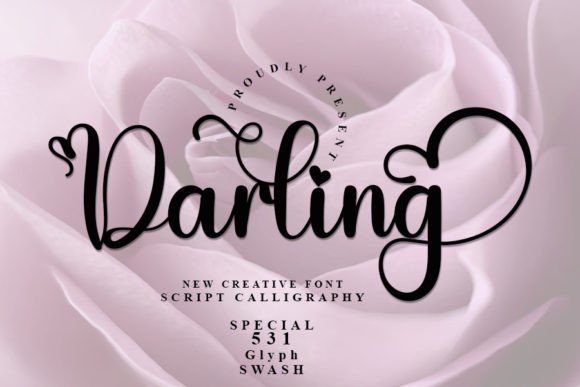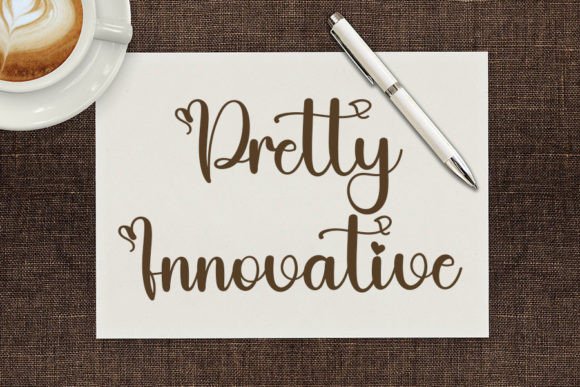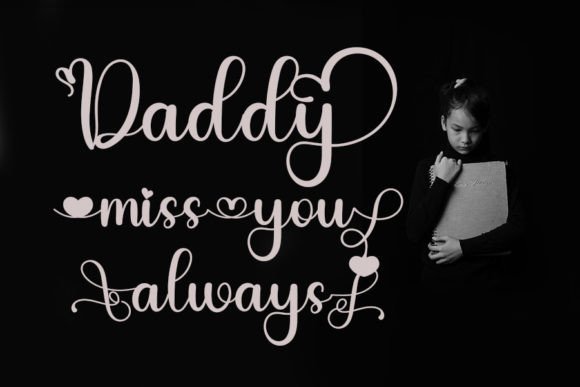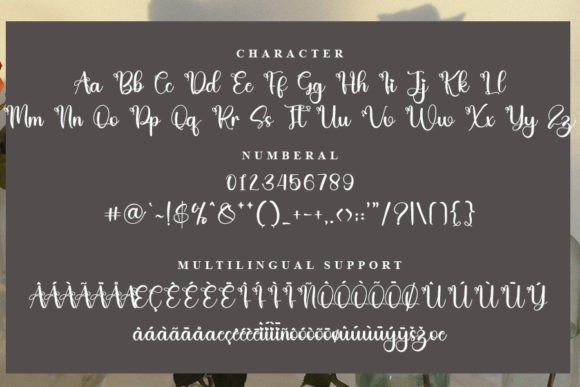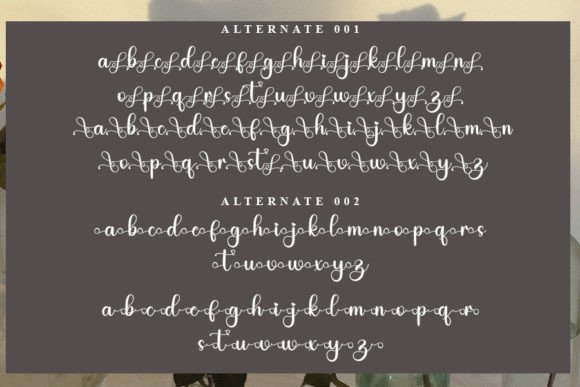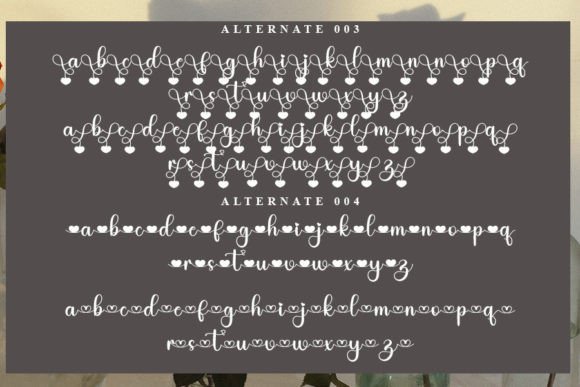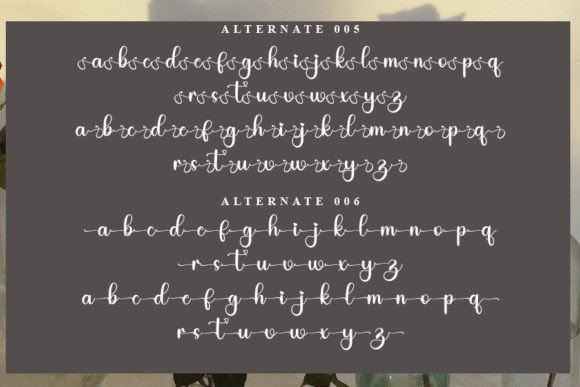
Discover the Timeless Elegance of Darling Font
You know that moment when you’re brainstorming ideas for a new design project and you just can’t seem to find the perfect font to match your vision? It’s like trying to find a missing piece of a puzzle, and you know it’s out there, but where? That’s where the Darling Font comes in – a trendy handwritten font that exudes a contemporary atmosphere and impeccable form, inspired by the timeless classic calligraphy.
With Darling Font, you’ll be able to add a touch of elegance and class to any design project, from wedding invitations to branding materials. Its versatility makes it the perfect addition to any designer’s toolkit, and its unique character will set your designs apart from the crowd. Whether you’re a seasoned pro or just starting out, the Darling Font is an invaluable asset that will help you create truly unforgettable designs.
Darling Font Key Features
- Font Size: The font family includes 6 weights, ranging from Thin (100) to Bold (800), providing flexibility for various design applications.
- Unique Characteristics: This font features elegant, cursive script lines with subtle flair and flair-like features, making it ideal for adding a touch of sophistication to designs.
- Language Support: Darling Font supports a wide range of languages, including Latin, Cyrillic, and Greek scripts, making it a versatile choice for global applications.
- Kerning and Ligatures: The font includes advanced kerning and ligature pairs, ensuring smooth text flow and professional-looking typography.
Darling Font Review
I recently had the chance to work with the Darling Font, and I must say, it’s been an interesting experience. Here are my thoughts on what works well and what doesn’t.
- Unique Character: The Darling Font has a distinct personality that can add a touch of elegance to any design. Its flowing lines and cursive style make it perfect for creating a romantic atmosphere.
- Flexibility: The font is available in a range of weights, from light to bold, making it versatile for various design applications.
- Readability: Despite its cursive style, the font is surprisingly easy to read, making it suitable for body text as well as headings.
- Size Limitations: The font can become difficult to read when scaled down to very small sizes.
- Lack of Consistency: The font’s irregular lines and curves can sometimes make it challenging to maintain consistency in design.
While the Darling Font has its limitations, I think it’s a great choice for designers looking to add a touch of sophistication and elegance to their projects. With a little creativity and attention to detail, it can be a powerful tool in your design arsenal.
Darling Font: A Practical Application Guide
Getting the Most Out of Darling Font
For optimal results, use Darling Font in combination with high-quality images and a well-designed layout.
Experiment with different font sizes, colors, and styles to create a unique look.
Use Darling Font for headings, titles, and body text to create a consistent visual brand.
Darling Font is perfect for:
Food and beverage branding
Home decor and furniture design
Any project that requires a touch of elegance and sophistication
Alternatives to Darling Font for Designers
Great Vibes Font is a modern, elegant script font that works well for titles, headings, and short paragraphs. It’s ideal for creating a sophisticated and stylish look. Great Vibes Font is similar to Darling Font in its flowing and cursive nature, but it has a more refined and polished feel.
Pacifico Font is a beautiful, handwritten script font that’s perfect for creating a relaxed and beachy vibe. It’s great for headings, titles, and short paragraphs, especially in travel and lifestyle design projects. Pacifico Font is similar to Darling Font in its casual and friendly feel, but it has a more laid-back and carefree attitude.